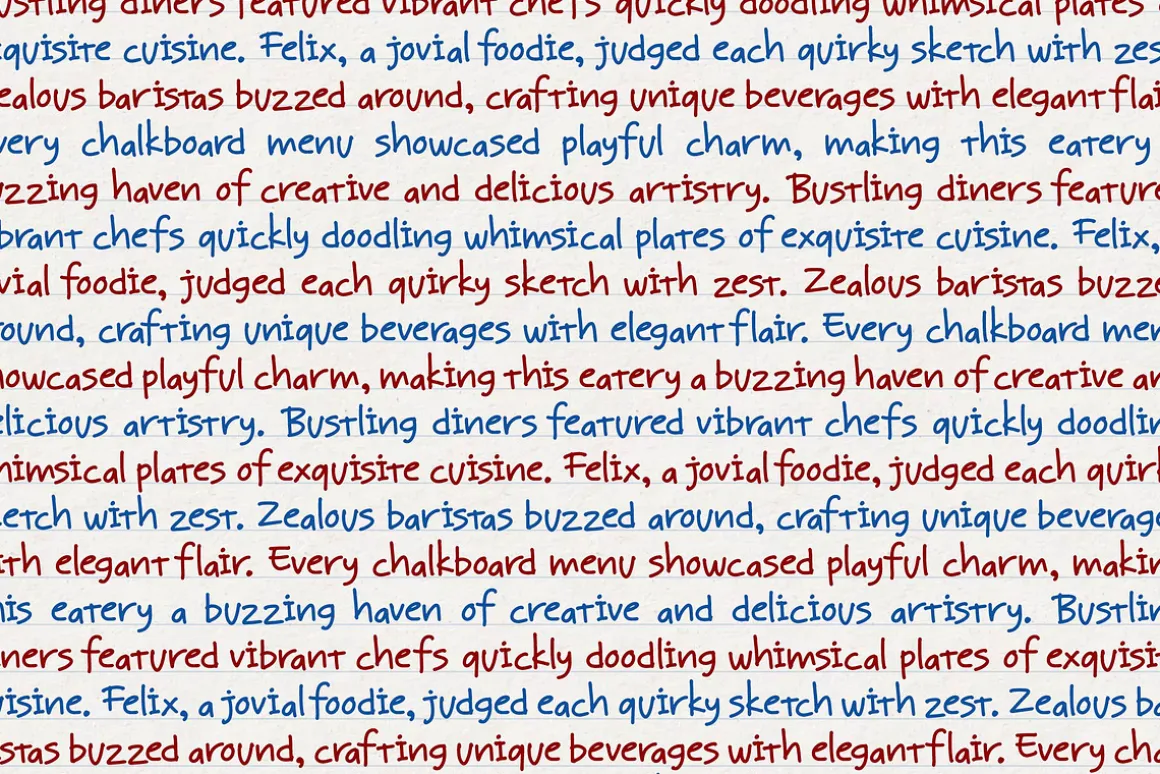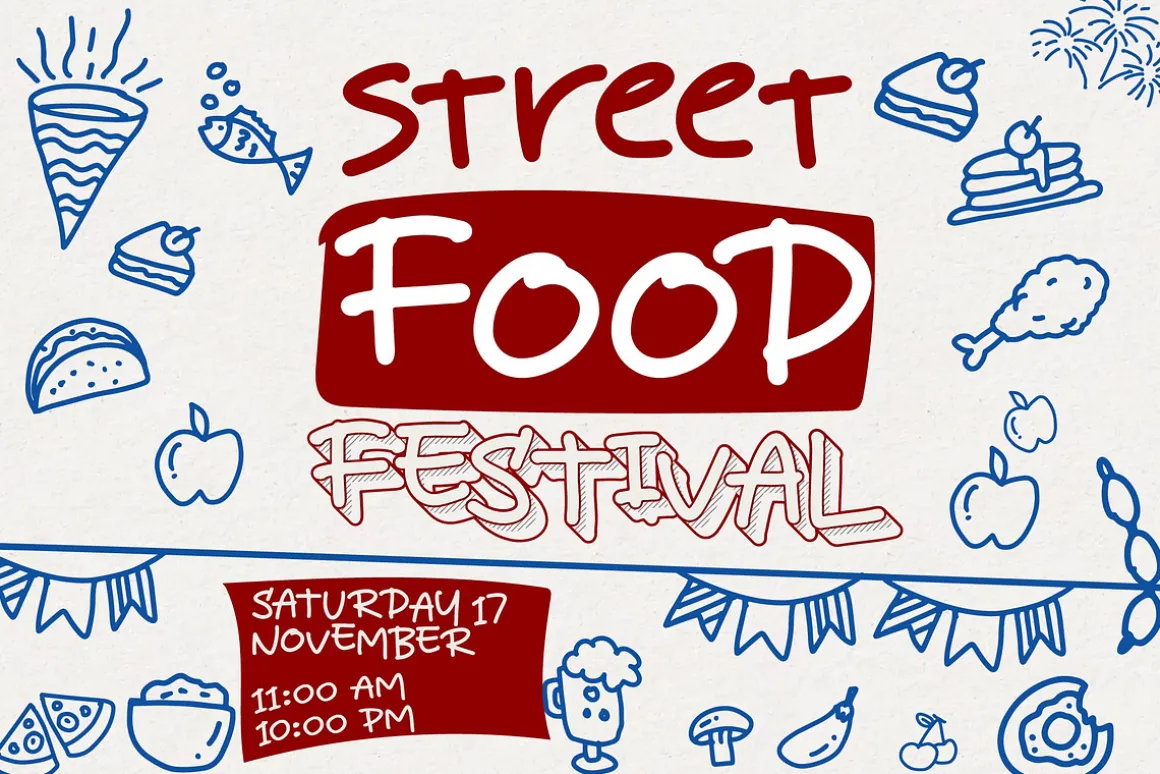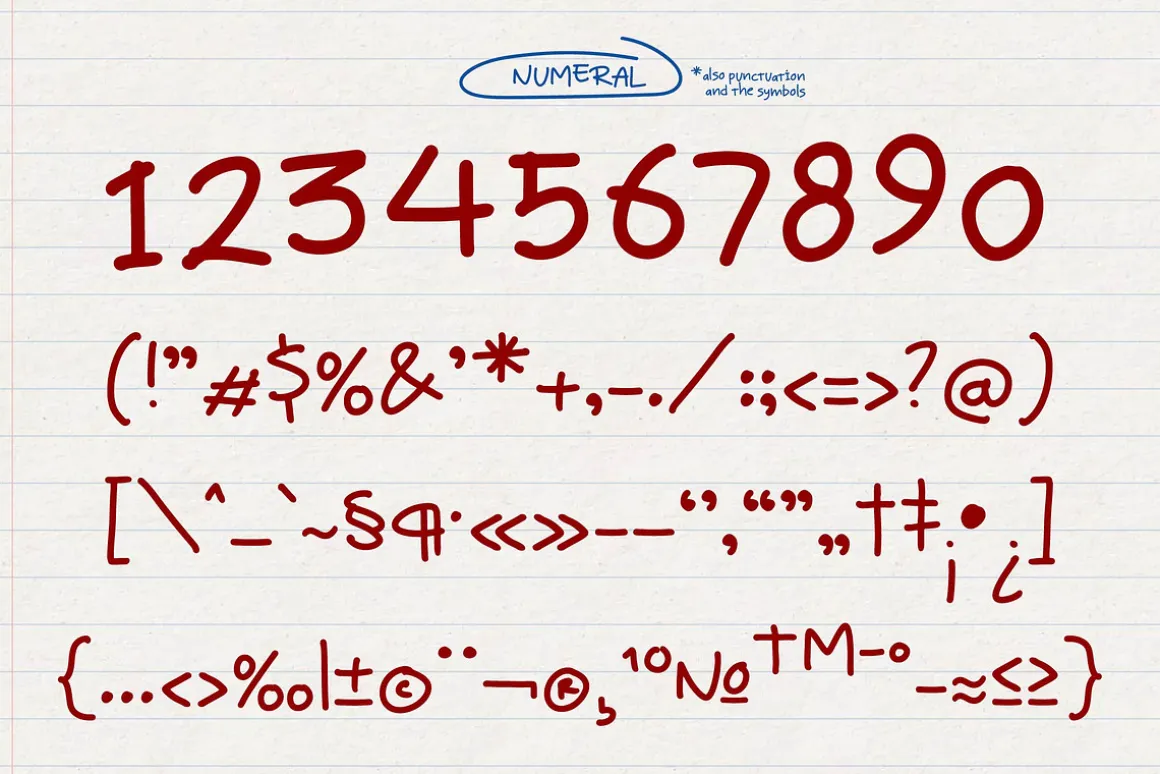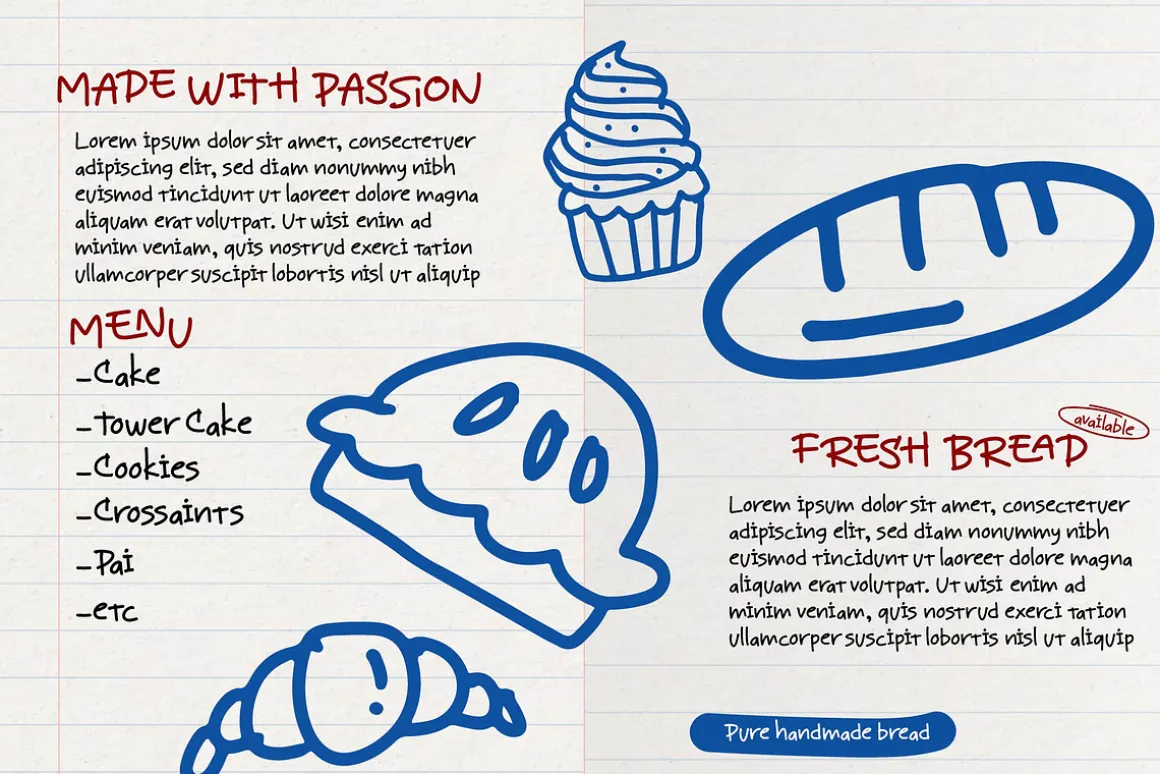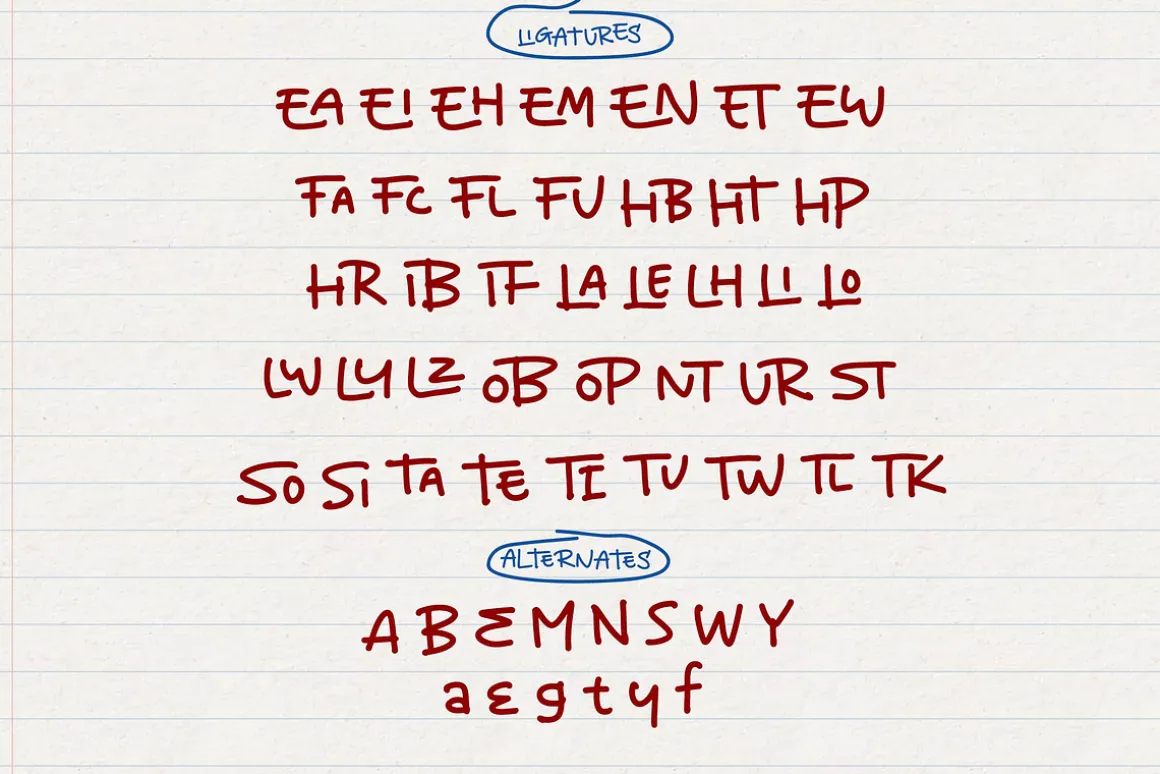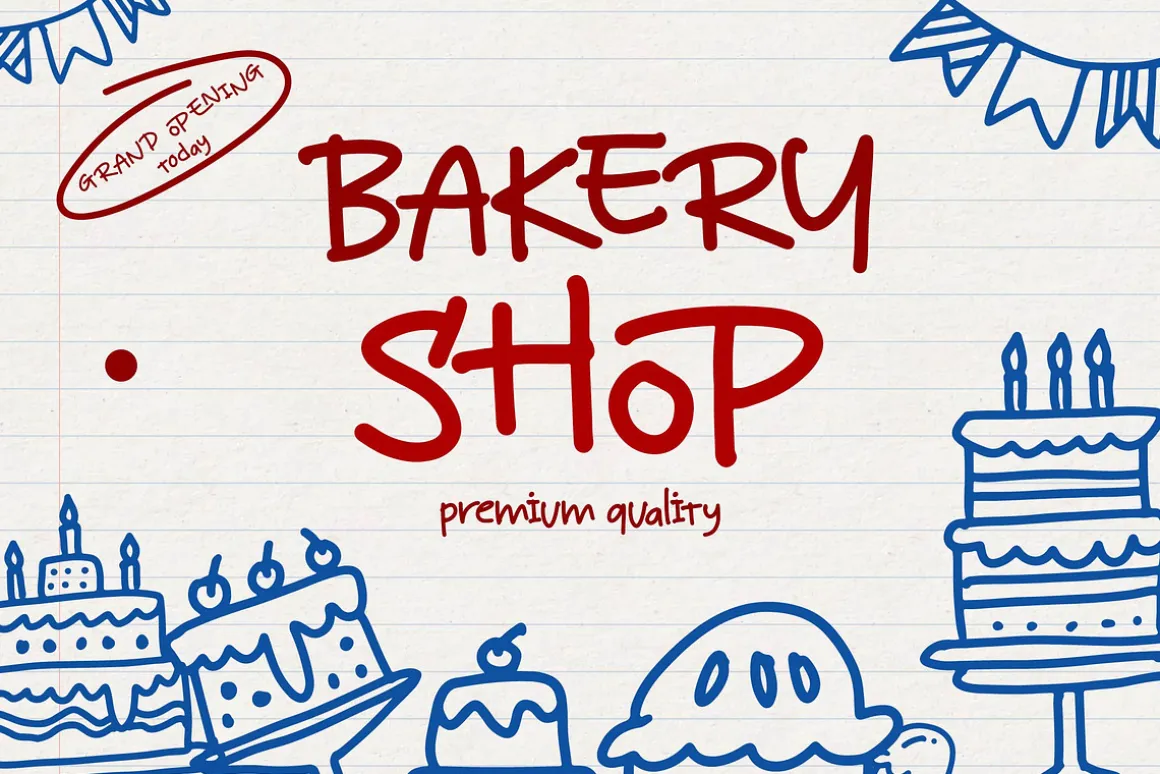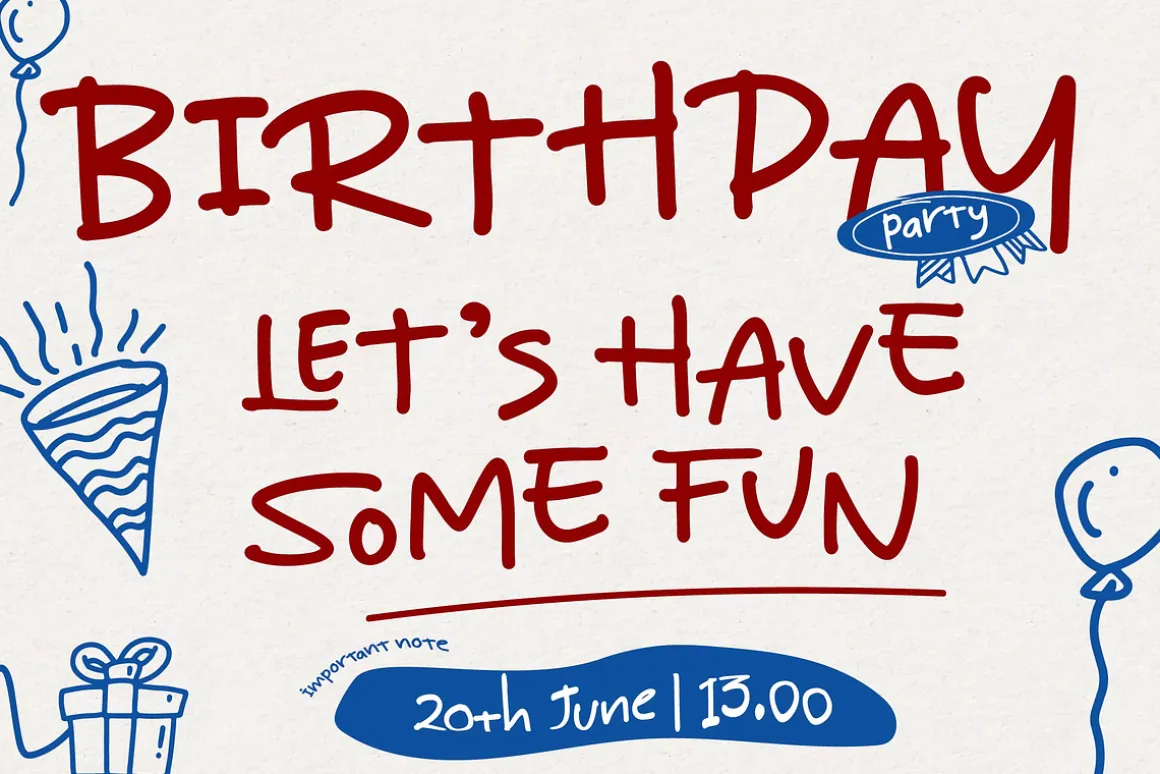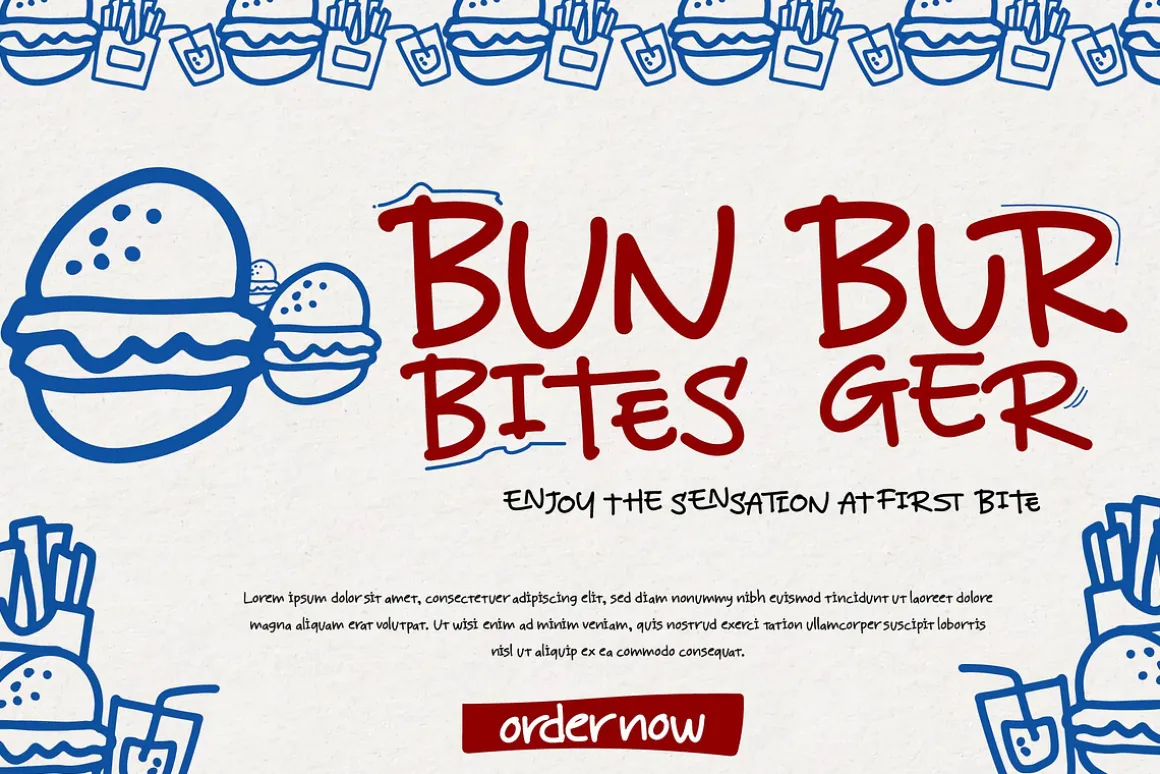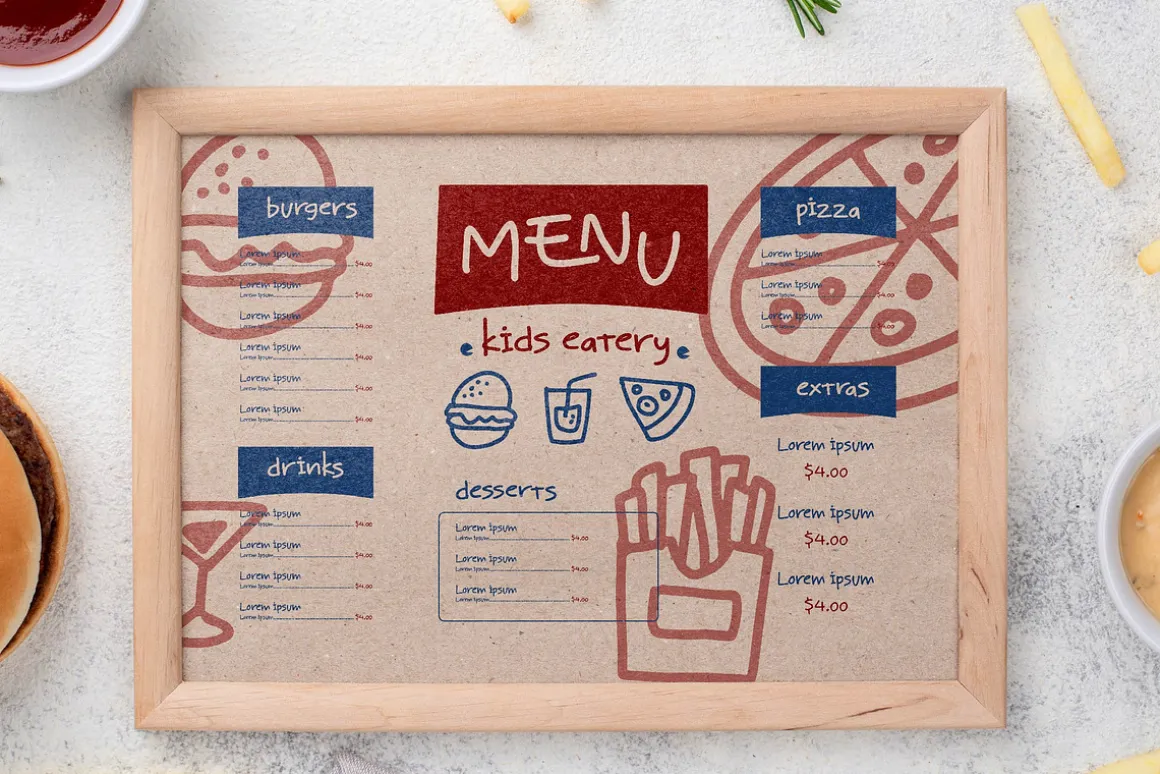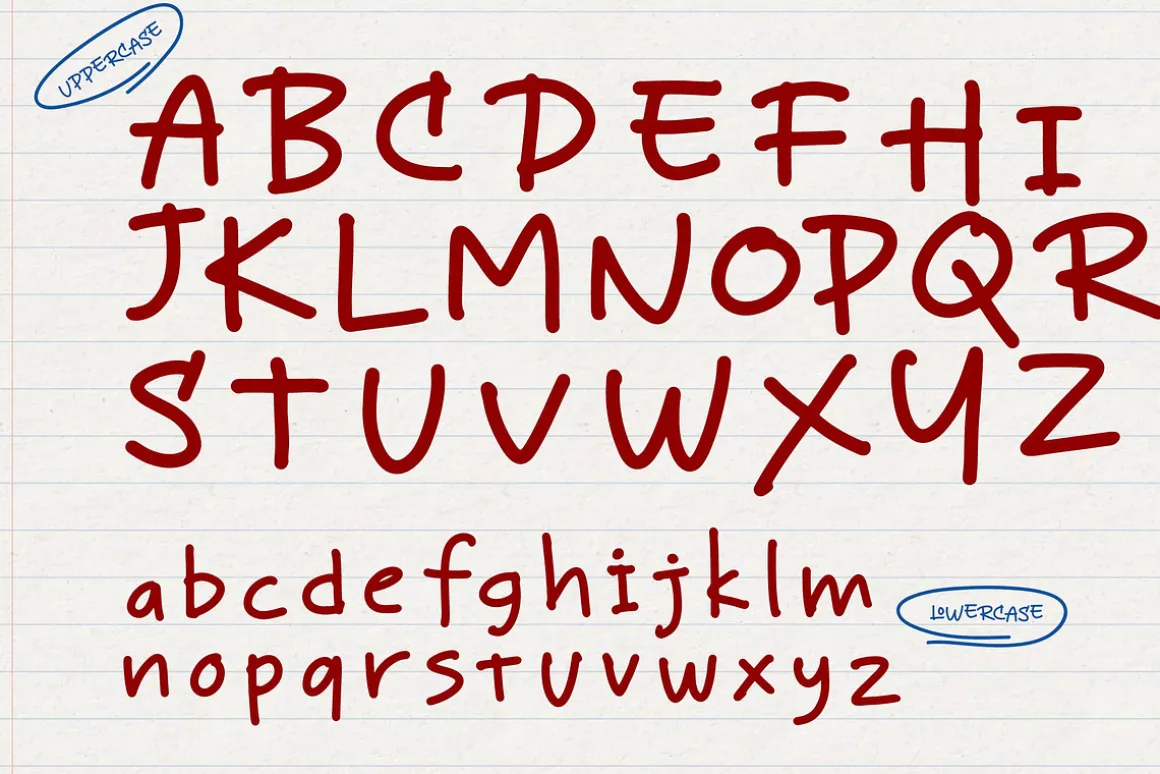
Gourmet Eatery
Doodle Typeface, from Denustudios, suitable for any projects such as: logos, branding projects, homeware designs, product packaging, mugs, quotes, posters, shopping bags, t-shirts, book covers, name card, invitation cards, greeting cards, label, photography, watermark, special events, and all your other lovely projects that need a Doodle Typeface taste.